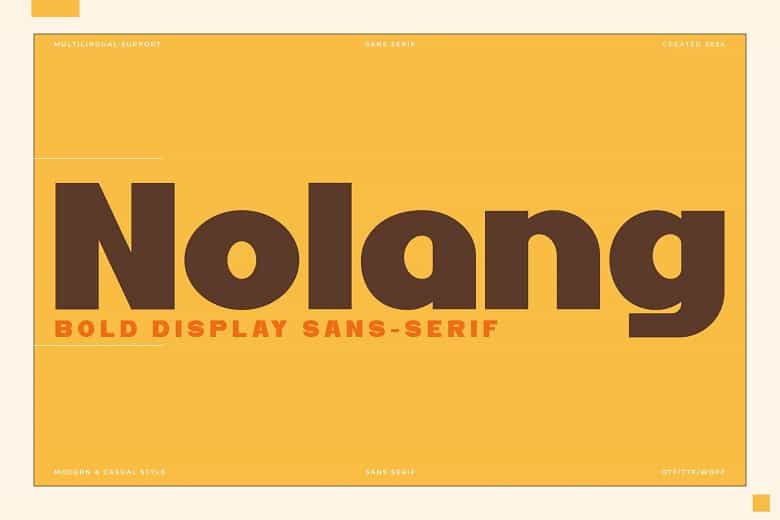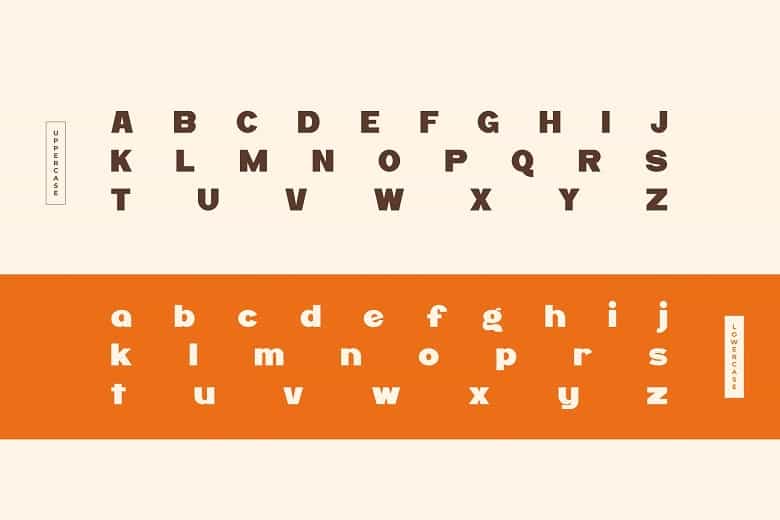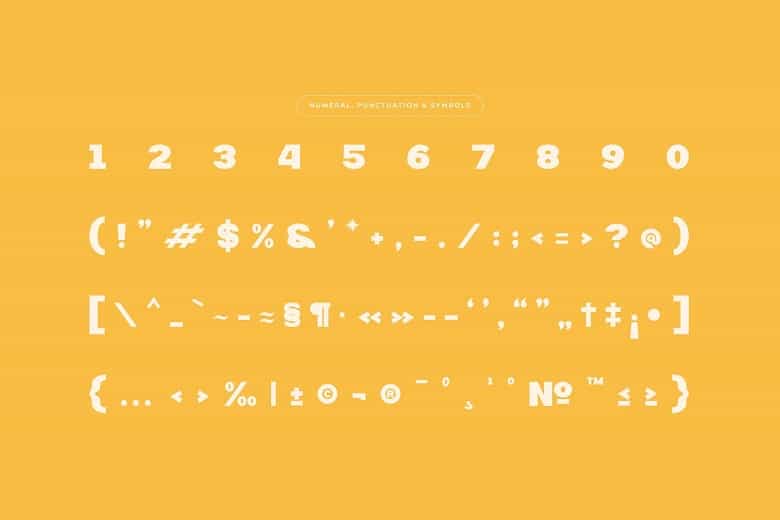
Nolang is a bold display sans serif typeface, from Denustudios, It’s suitable for any projects such as: logos, branding projects, homeware designs, product packaging, mugs, quotes, posters, shopping bags, t-shirts, book covers, name card, invitation cards, greeting cards, label, and all your other lovely projects.